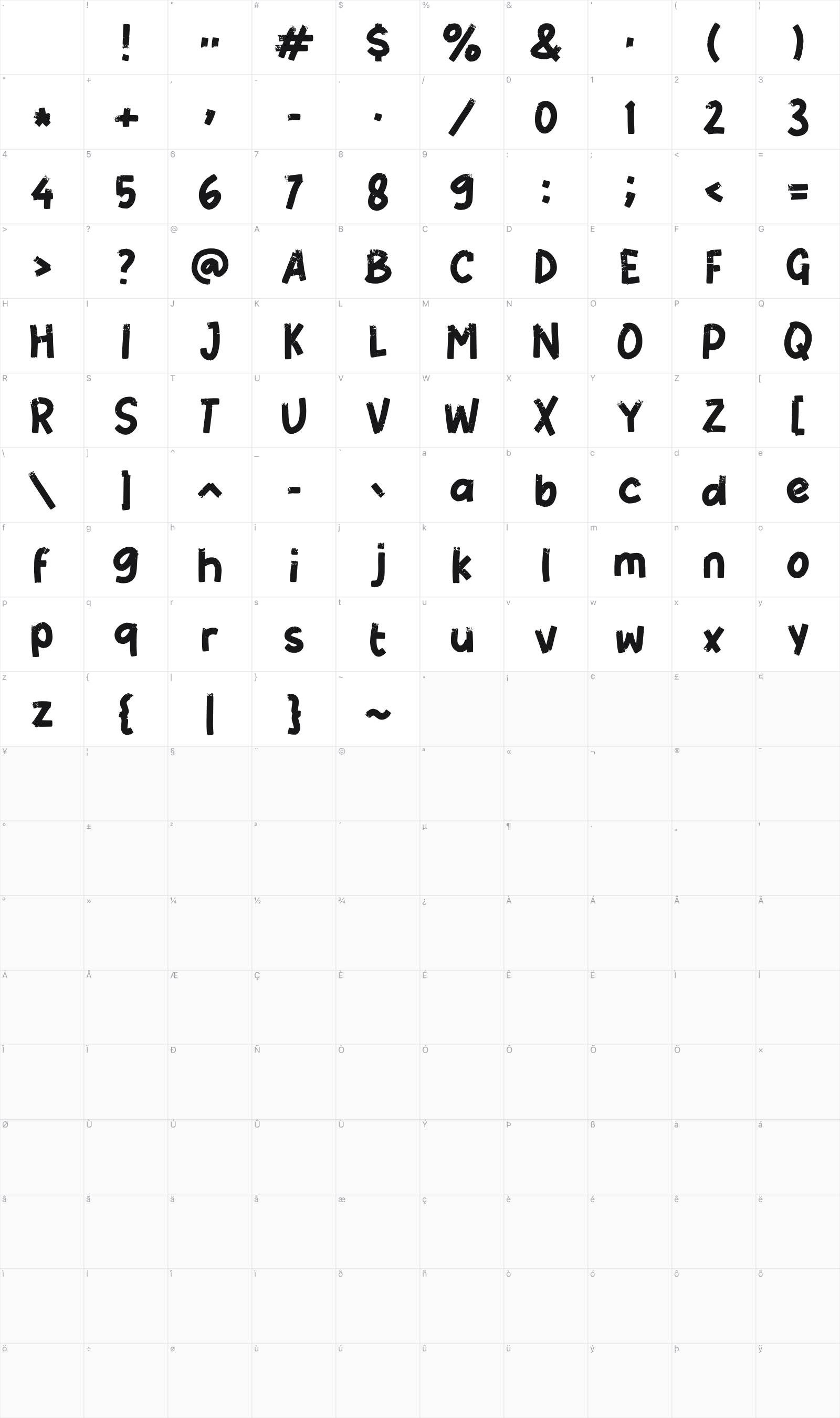
i Incar
i IncarLicense is a bold brush font with a raw, hand-painted energy and rough ink textures on every stroke. The rounded, irregular characters feel spontaneous without sacrificing readability at headline sizes. It carries the charm of quick hand lettering with just enough consistency to work across titles, packaging, and casual branding.